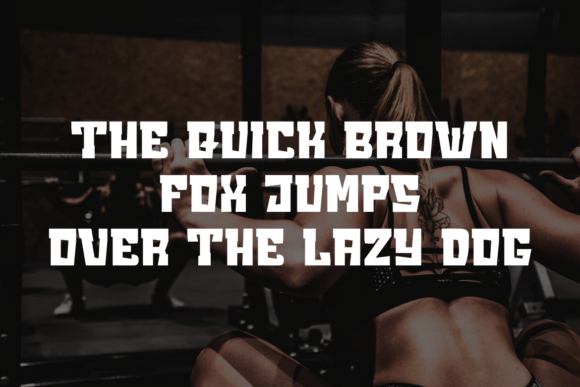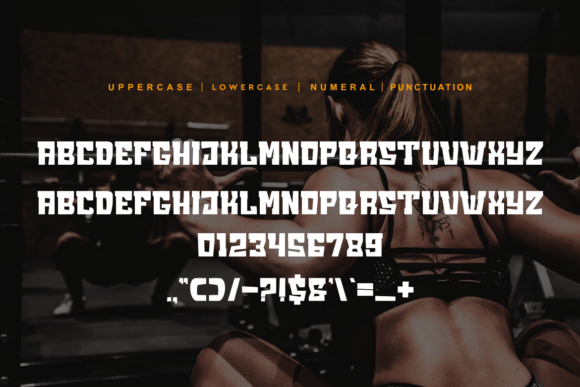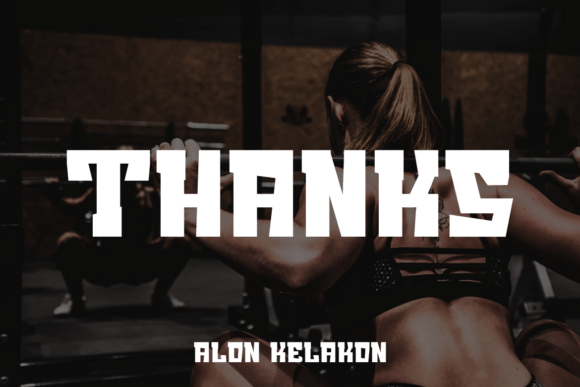
Introduction to Pentom Morales Font Font
Fonts play a crucial role in design, and the Pentom Morales Font font is a typeface that brings both character and versatility to any project. Whether you’re working on a branding project, a website, or a print design, the Pentom Morales Font font offers a unique style that can elevate your work.
Immerse yourself in the exceptional charm of our distinctive typeface, meticulously crafted for amplifying your design potential.
This font is poised to elevate various creative endeavors, including labeling, movie scenes, splashing movie titles, gripping gig posters, captivating album covers, and standout logos Seamless integration is provided through the inclusive OTF, TTF, & WOFF formats.
Key Features of Pentom Morales Font Font
Why Choose Pentom Morales Font Font?
The Pentom Morales Font font is more than just a typeface – it’s a design tool that helps you communicate your message with style and clarity. Its unique character set and versatile design make it suitable for a wide range of applications, from elegant invitations to bold headlines.
With its carefully crafted letterforms and balanced proportions, the Pentom Morales Font font ensures readability and visual appeal across all mediums.
What makes Pentom Morales Font font special?
The Pentom Morales Font font stands out with its unique design, exceptional readability, and versatility across various design applications.